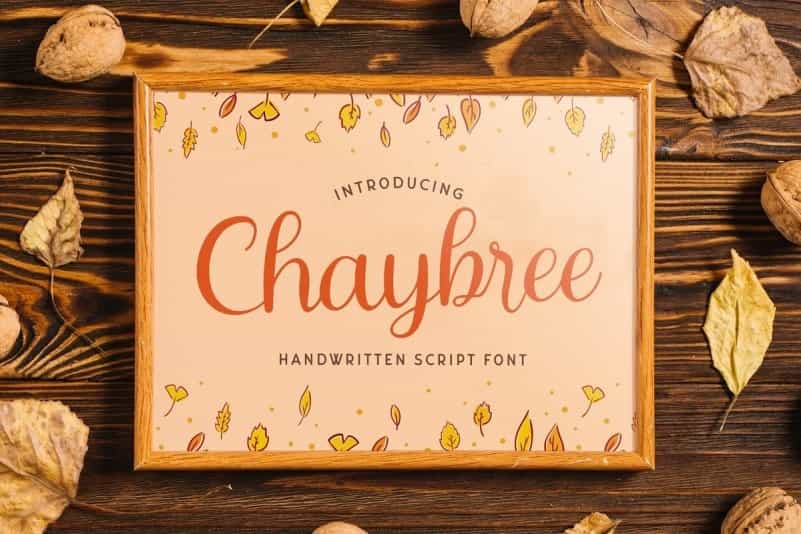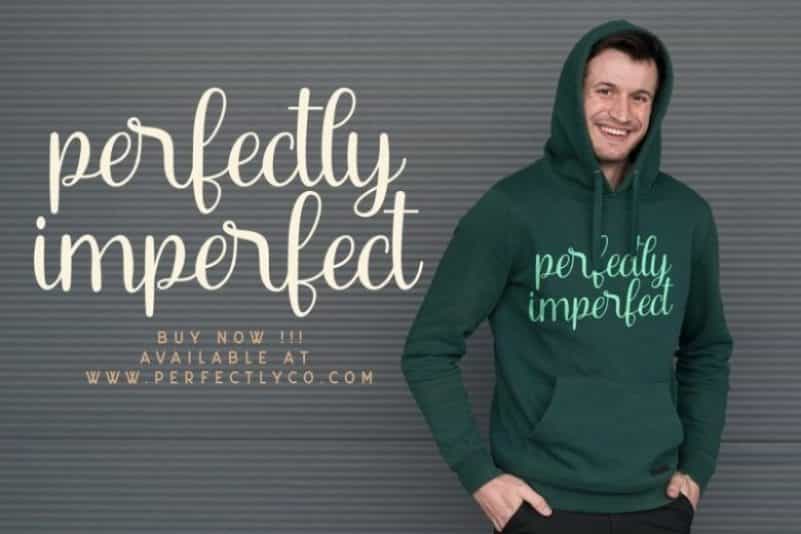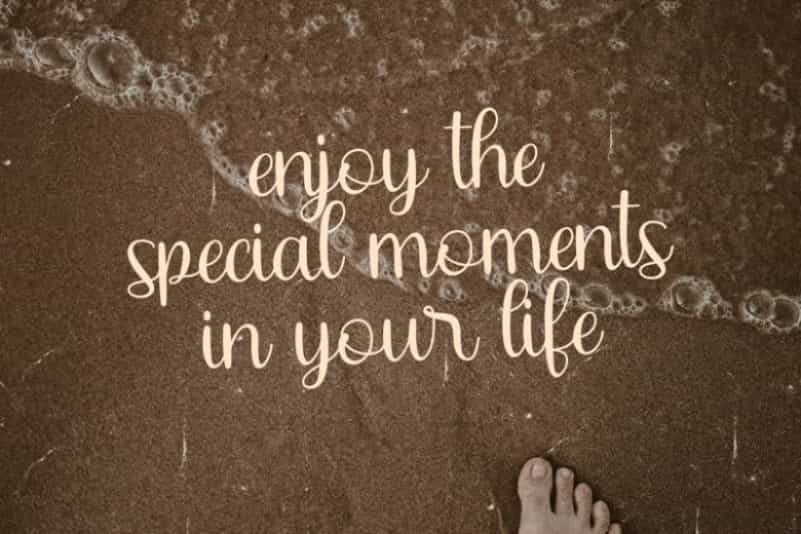
Chaybree Font is a brand new handwritten calligraphy typography that blends classic design with contemporary calligraphic design of a the font. It is smooth and has a soft, which gives it a natural look.